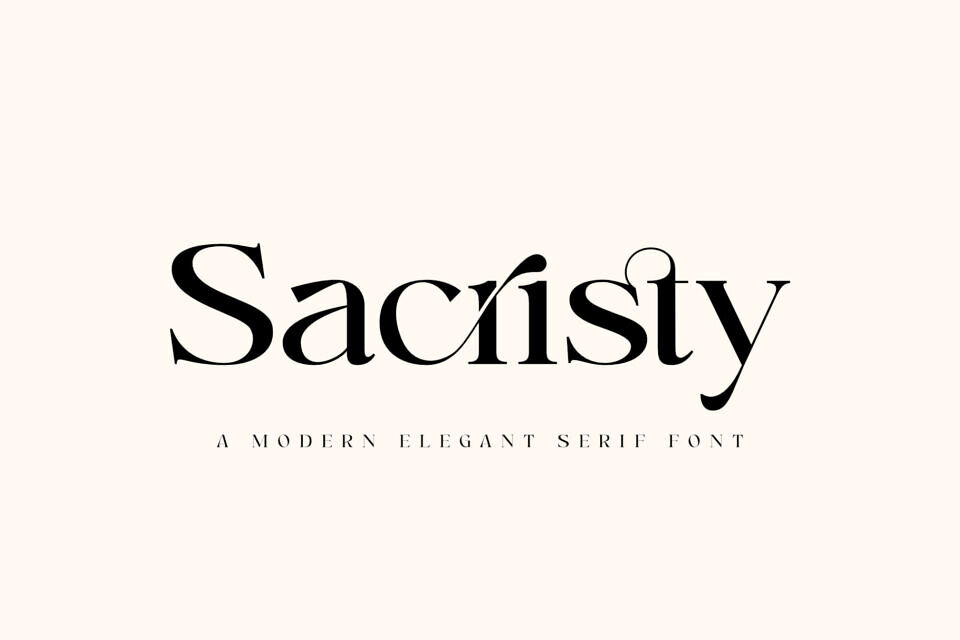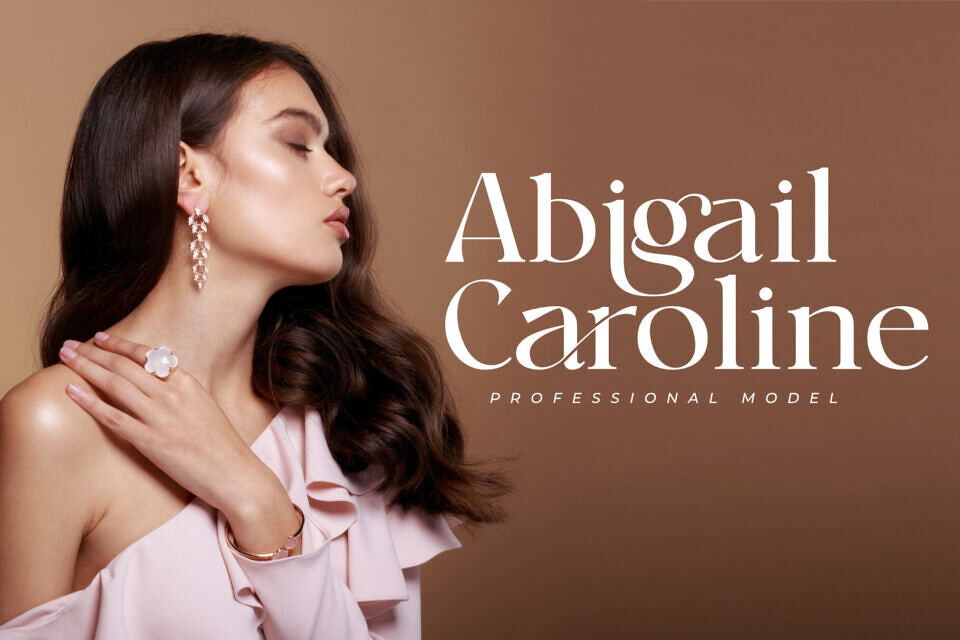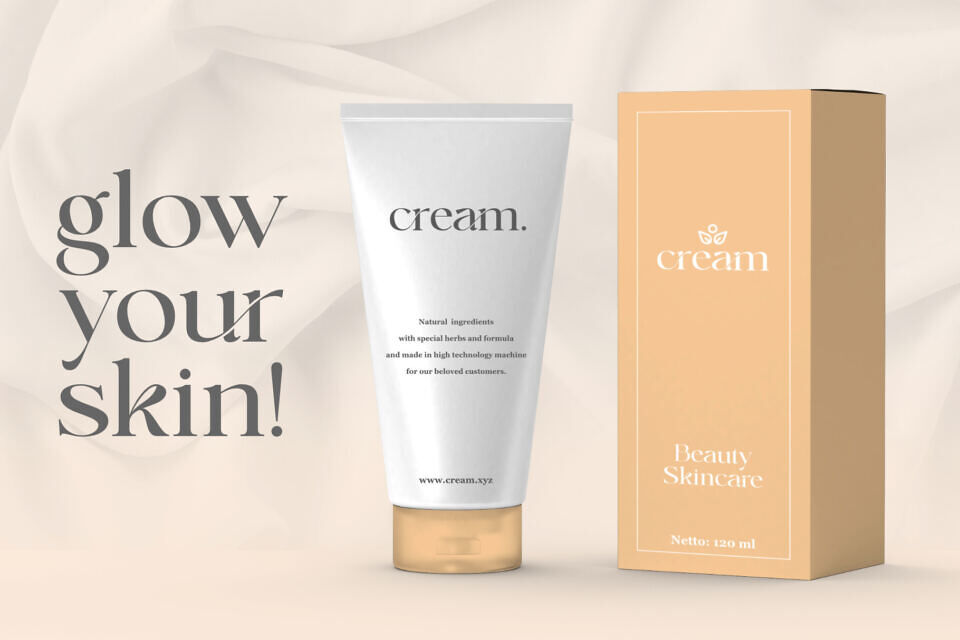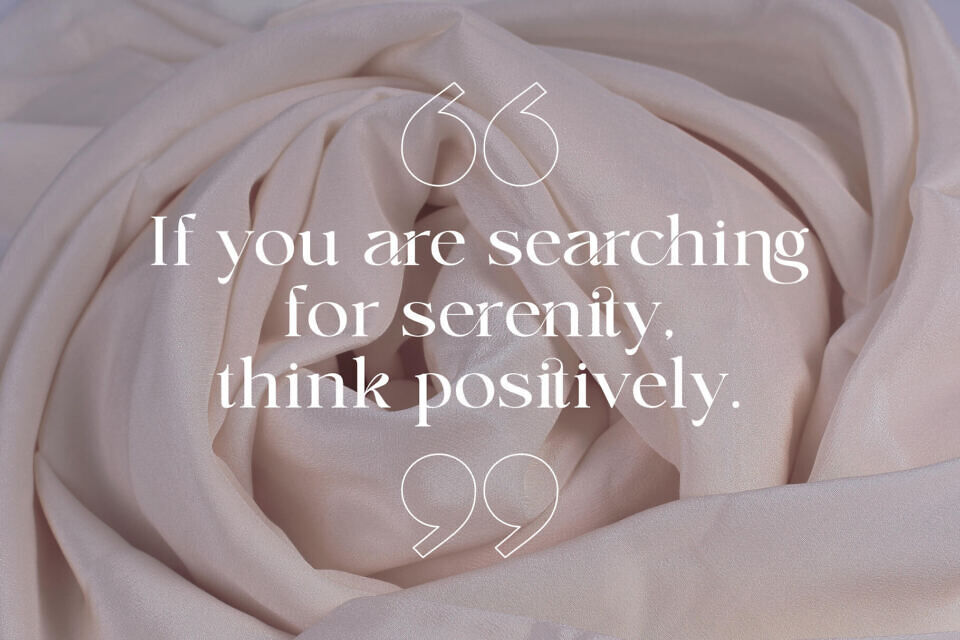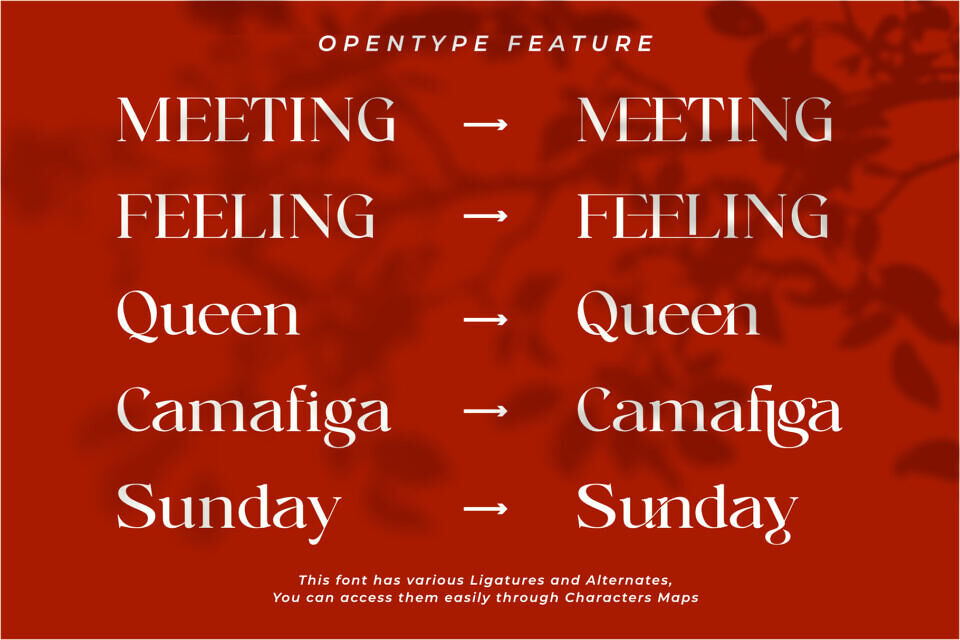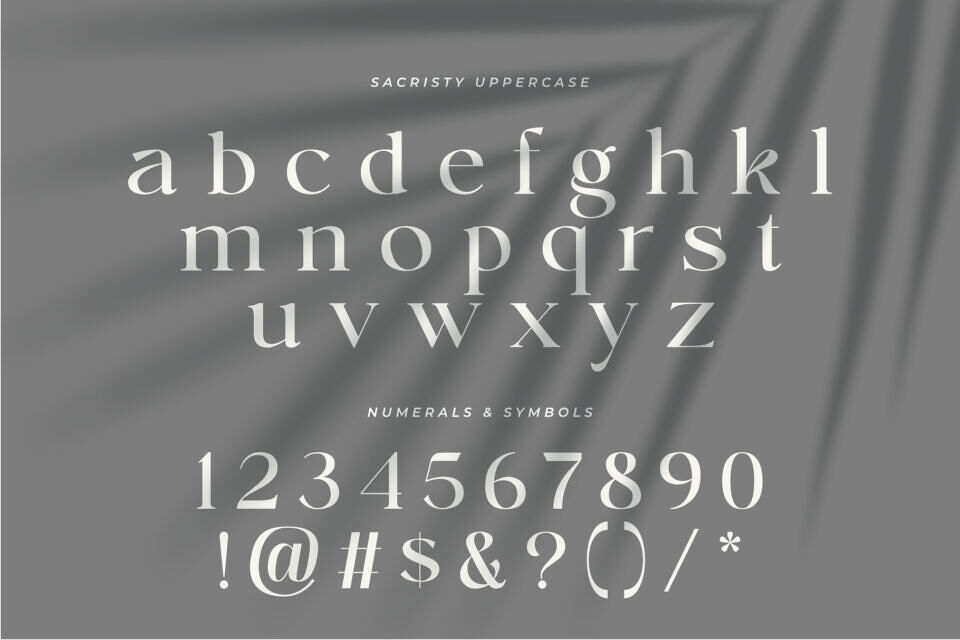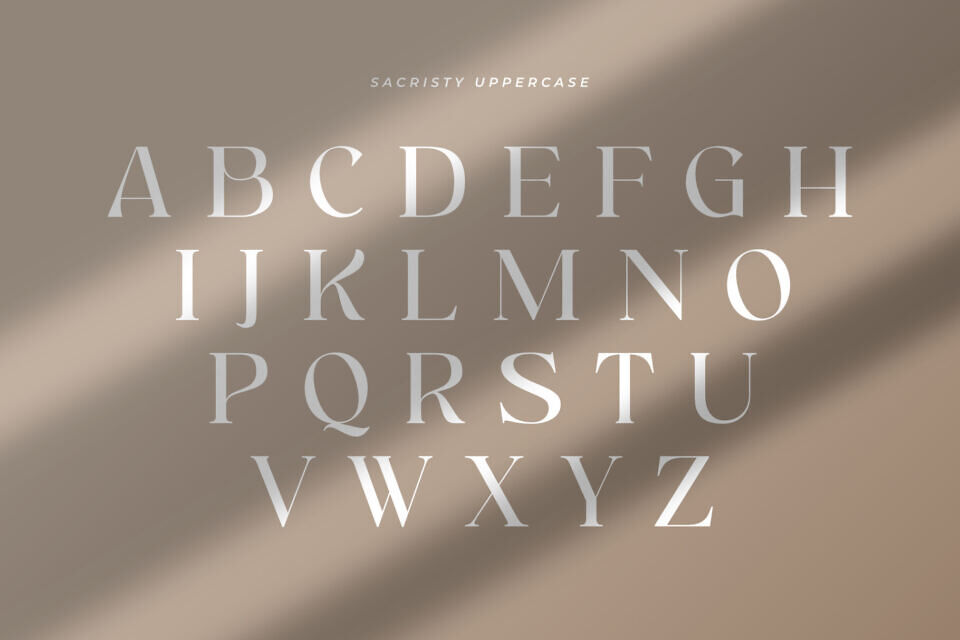
Sacristy Font
Introducing Sacristy, a classy and elegant serif font that exudes sophistication and style. With its stylish and refined shapes, Sacristy is the perfect choice for branding, logotypes, and a variety of design projects. This font’s timeless elegance makes it ideal for high-end branding and professional design work.